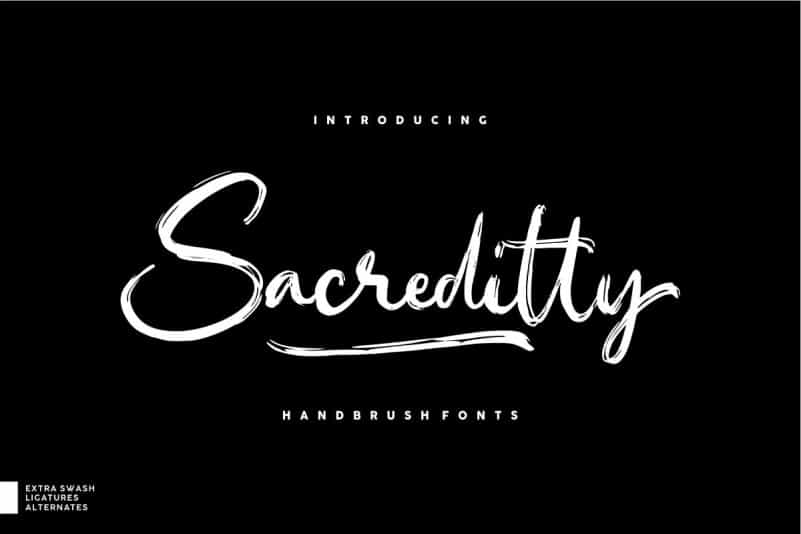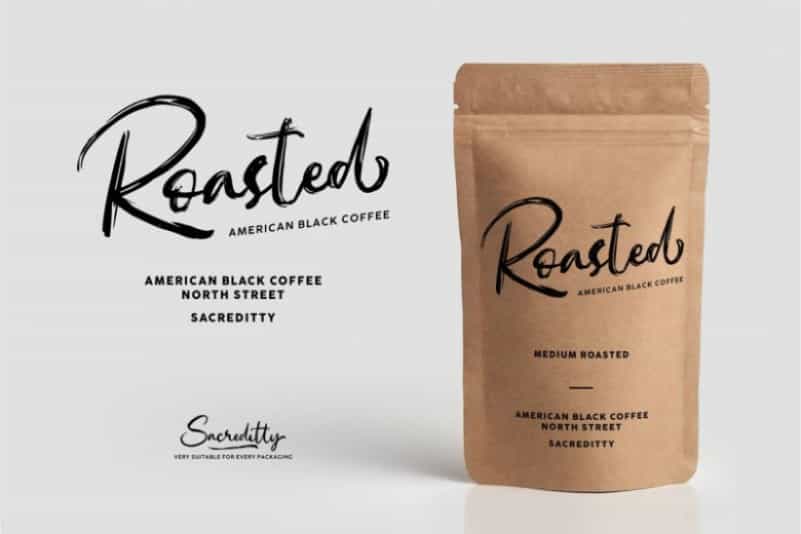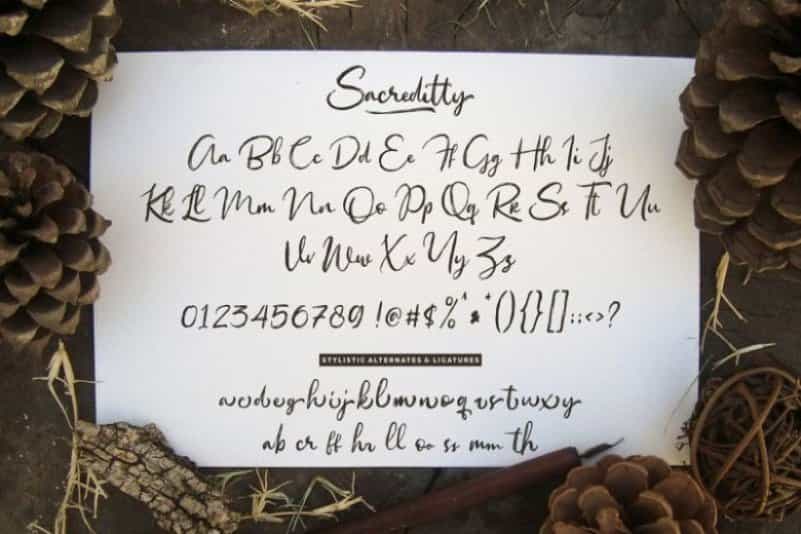
Proudly shows the newest product of Sacreditty Brush Font!It is created and distributed by Garisman Std. Sacreditty Handbrush Font is a mix of attractive curves and the freshness of an urban edge; it creates a stylish script that will definitely make your logo designs, brand imagery, handwritten quotes, product packaging, merchandise & social media posts look more appealing.